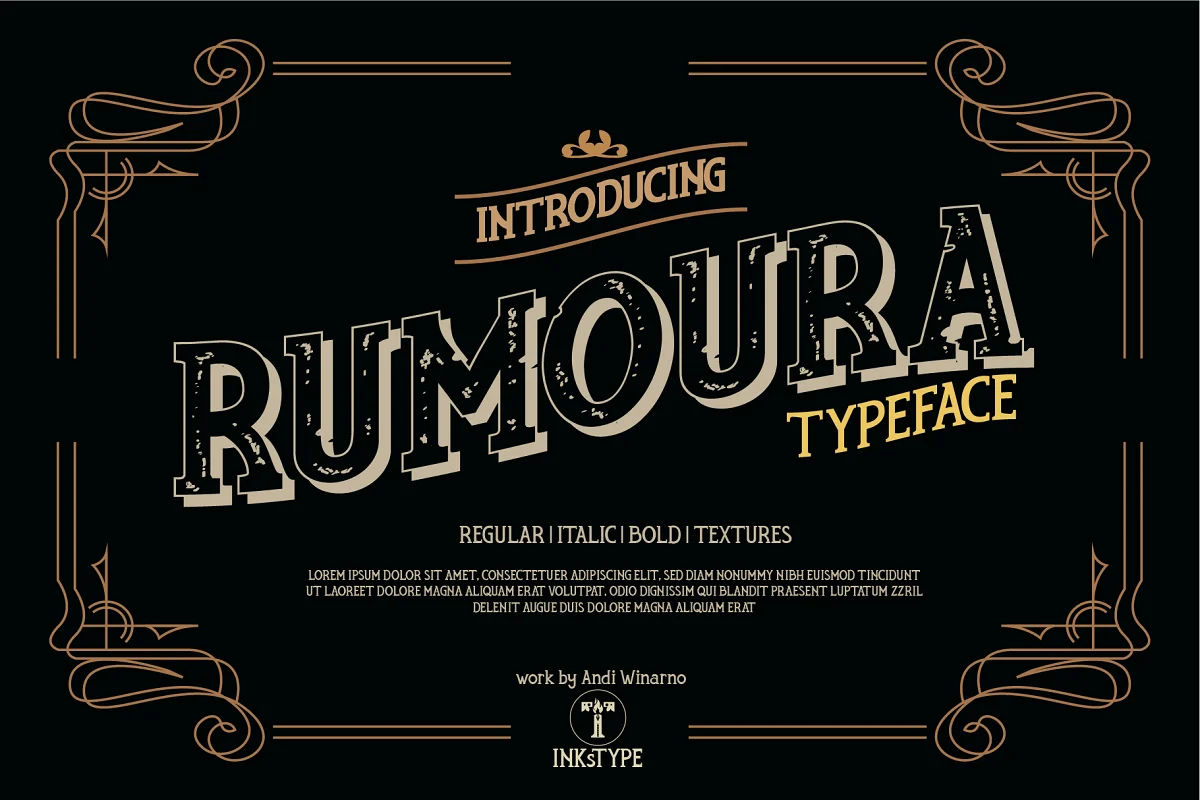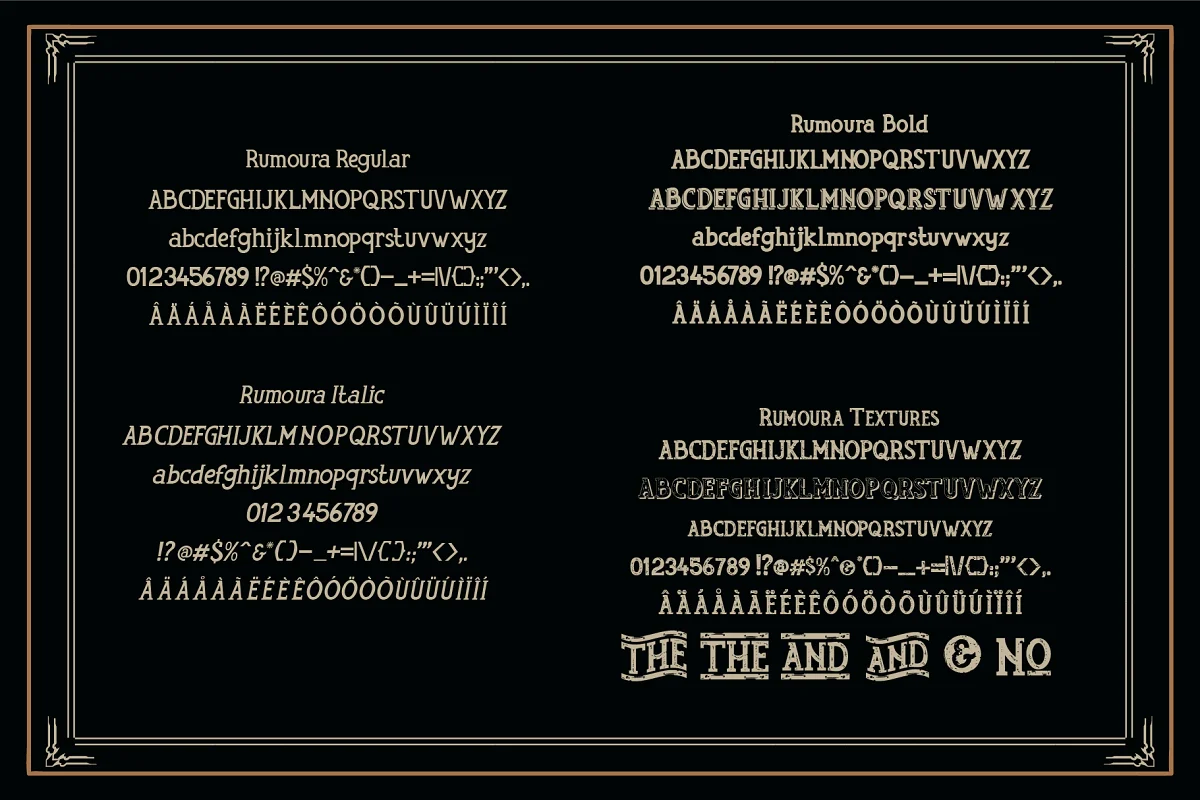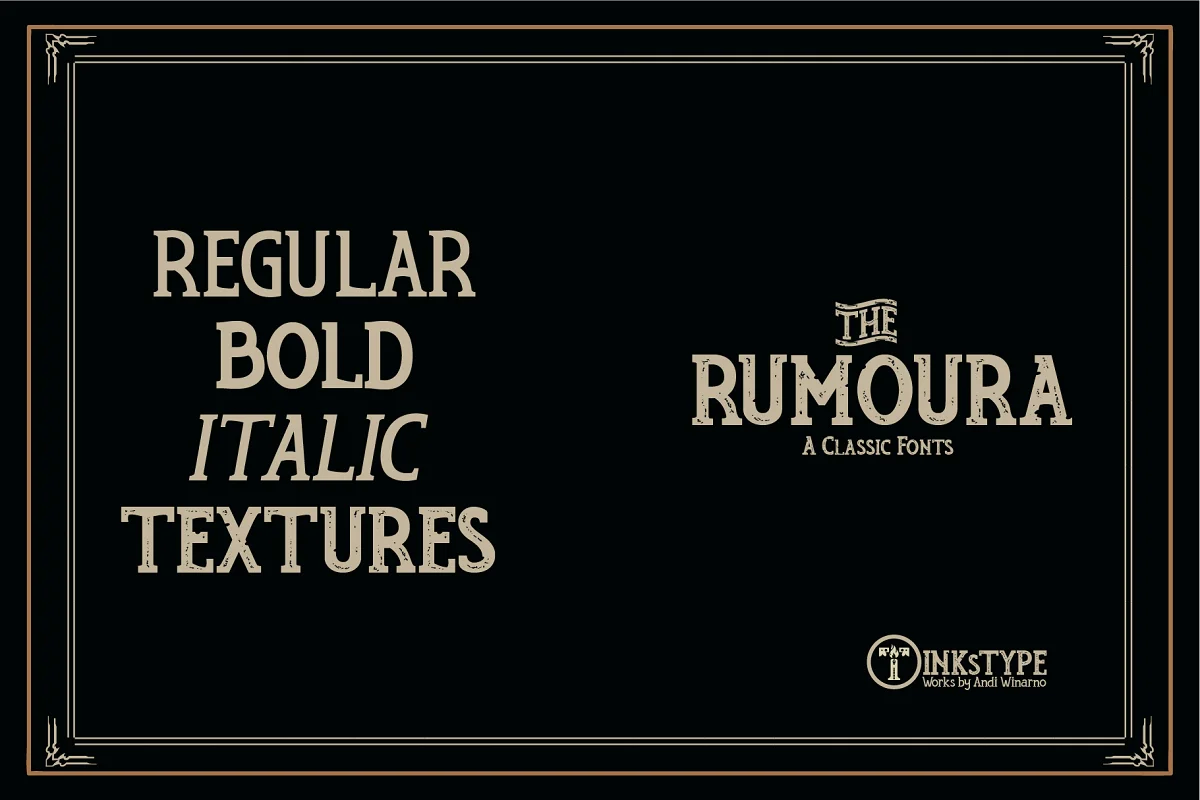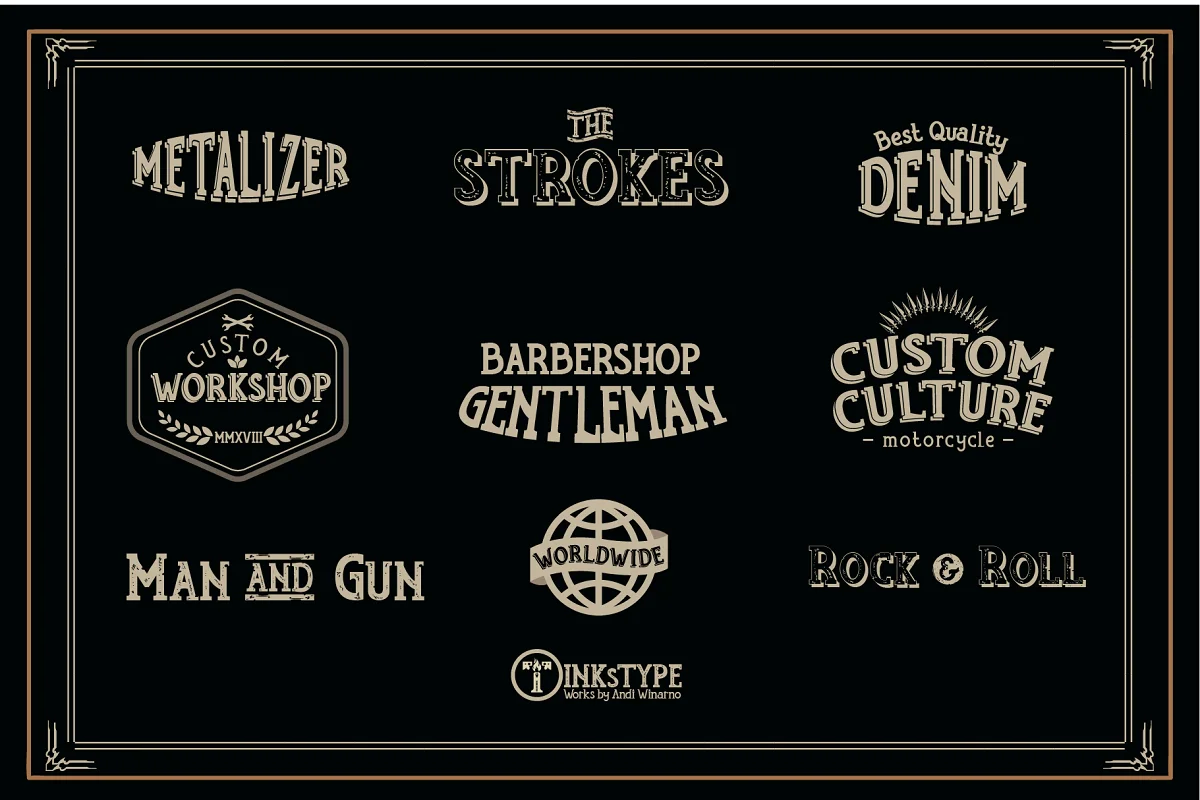
About the Rumoura Font
Rumoura is a typeface with a retro look, suit for any design project. You can use it for logos, Apparel, labels, Patch, etc.
Rumoura has 4 styles (Regular, Italic, Bold & Textures). With stylistic alternates on Textures & Bold, and it’s very simple to use them. Rumoura completed by OTF and TTF format.